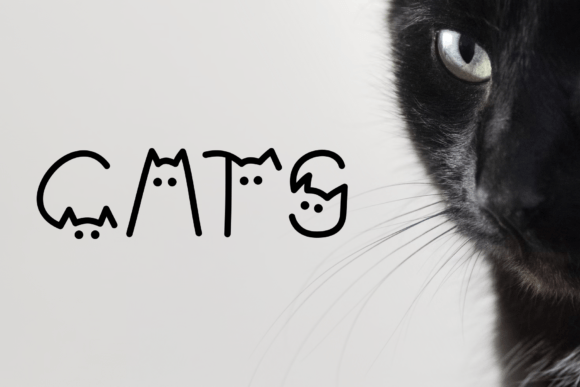
Introducing Cats Font - the best font for eyes, perfect for all cat lovers out there! Created by the talented Daniil Toropov, this fun and quirky decorative font is guaranteed to add a touch of whimsy to your designs.
With its cute and charming kitten characters, Cats Font is a must-have for anyone looking to create unique and eye-catching designs. Whether you're designing a poster, greeting card, or even a t-shirt, this font is sure to capture the hearts of your audience.
But don't let its playful appearance fool you - Cats Font is a highly versatile font that can be used for a variety of design purposes. Its legibility and clear lettering make it an excellent choice for titles, headings, and body text. Plus, its bold and striking appearance is perfect for grabbing attention and making a statement.
So why choose Cats Font? Well, for starters, it's the perfect way to inject some personality into your designs. Whether you're looking to create a fun and whimsical design or something more serious and professional, Cats Font can help you achieve your vision.
But perhaps the biggest reason to choose Cats Font is its ability to evoke emotion. The adorable kitten characters are sure to tug at your heartstrings and bring a smile to your face. Plus, the font's playful and lighthearted appearance is perfect for creating designs that are both memorable and impactful.